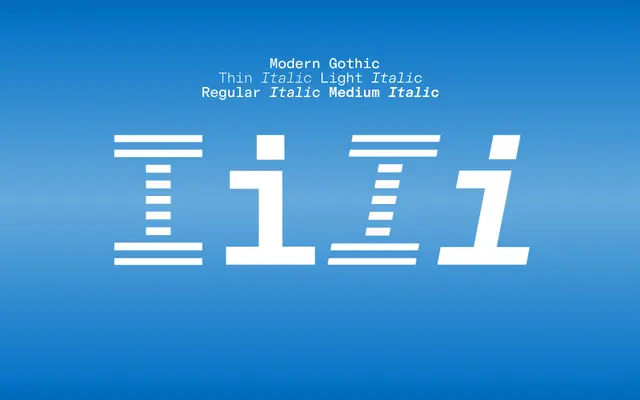
Modern Gothic Mono
A monospaced gothic sans in four weights with italics, suited to editorial interfaces, data contexts and text-heavy screen work.
Four weights from Thin to Medium, each with a matching italic, give this fixed-width grotesque a reasonable range for both display and body settings. OpenType features include stylistic alternates for 'a', 'g' and 'J', fractions, ordinals and a full suite of numeral forms, making it usable across tables, UI and long-form text. The sample texts drawn from Baudrillard, McLuhan and David Foster Wallace suggest an intent to position the face within critical media and information design contexts.
A monospaced typeface with a gothic sans-serif construction, combining fixed-width spacing with a grotesque character structure suited to editorial and screen use.